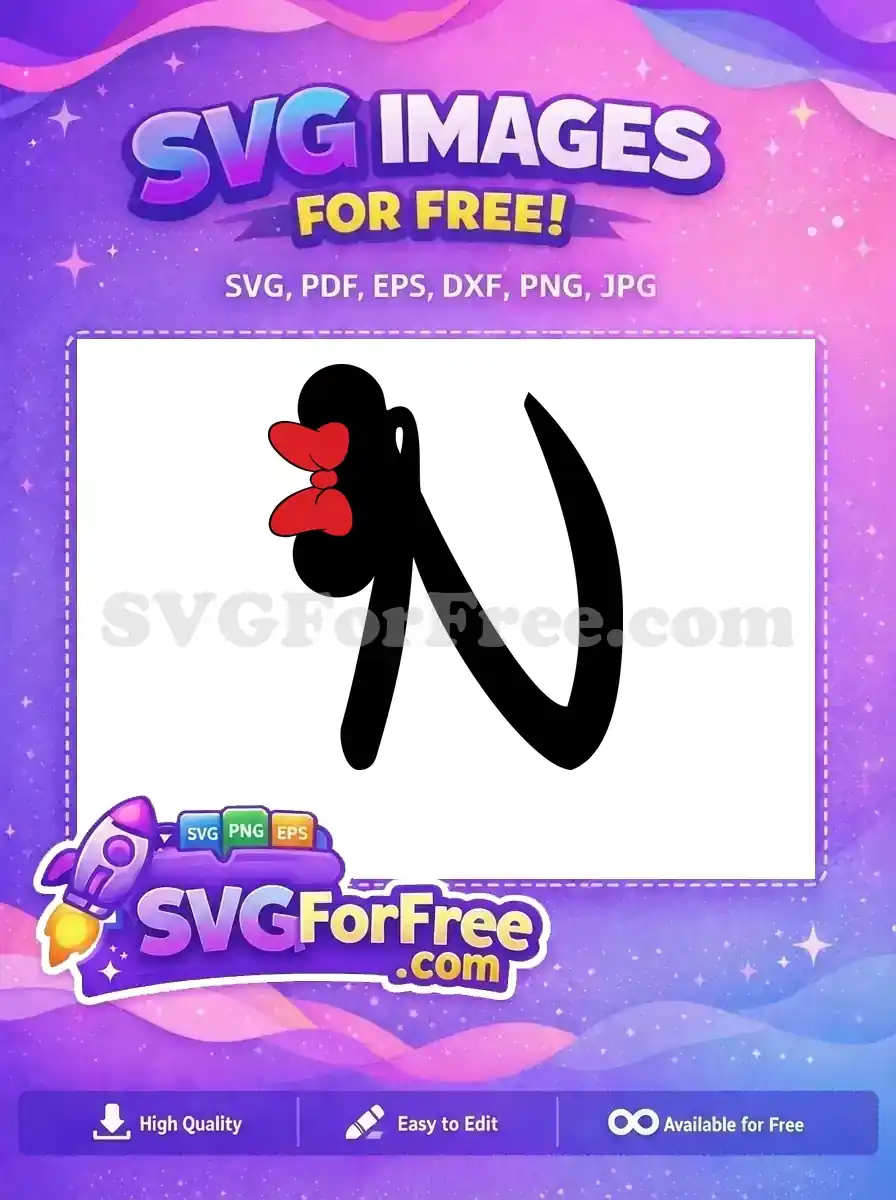
Free Minnie Font Letter N Free Red Bow Ears Disney Free SVG – Instant Download
A lovely, cursive capital letter ‘N’ decorated with Minnie Mouse’s ears and classic red bow. A free vector.
Free Minnie Font Letter N Free Red Bow Ears Disney Free SVG